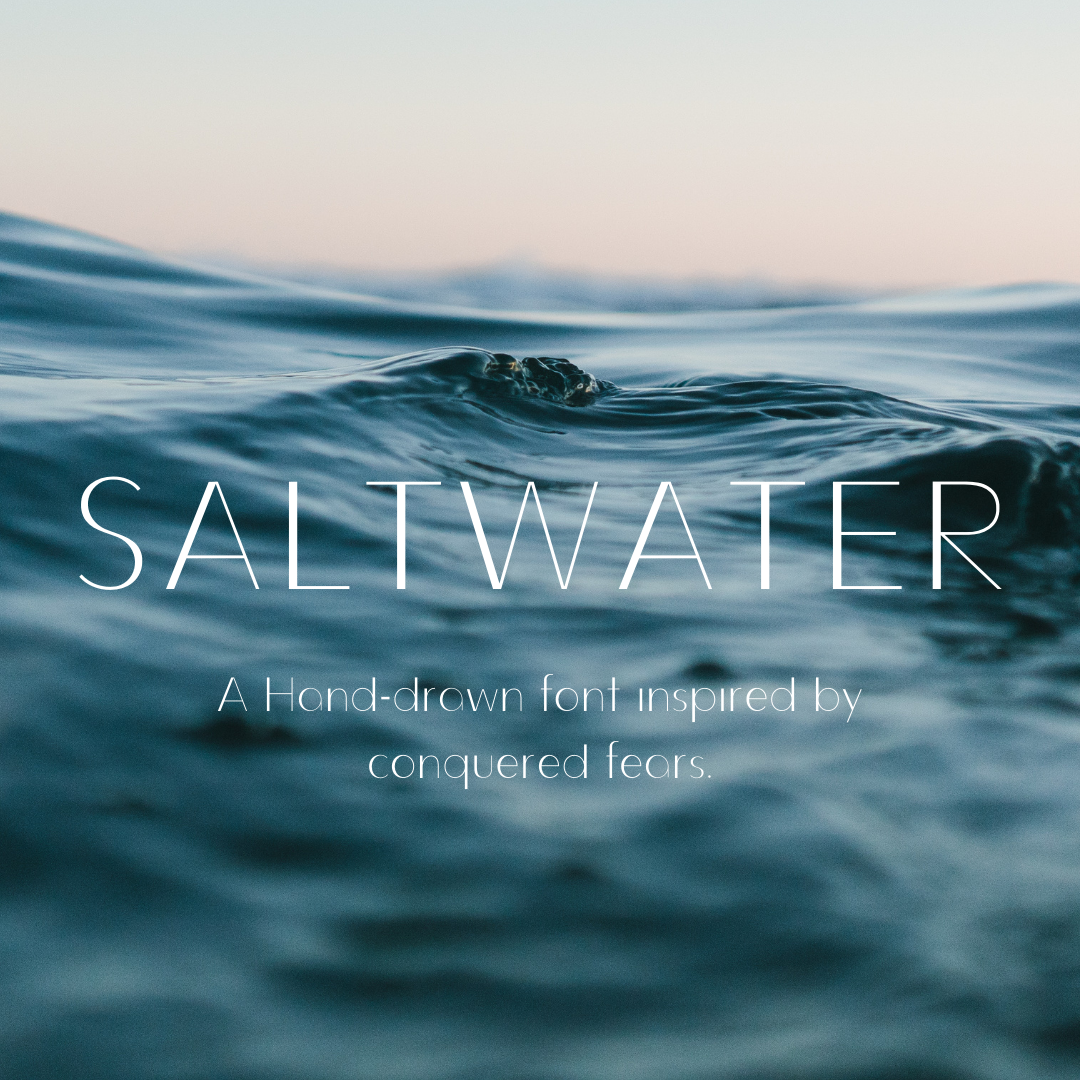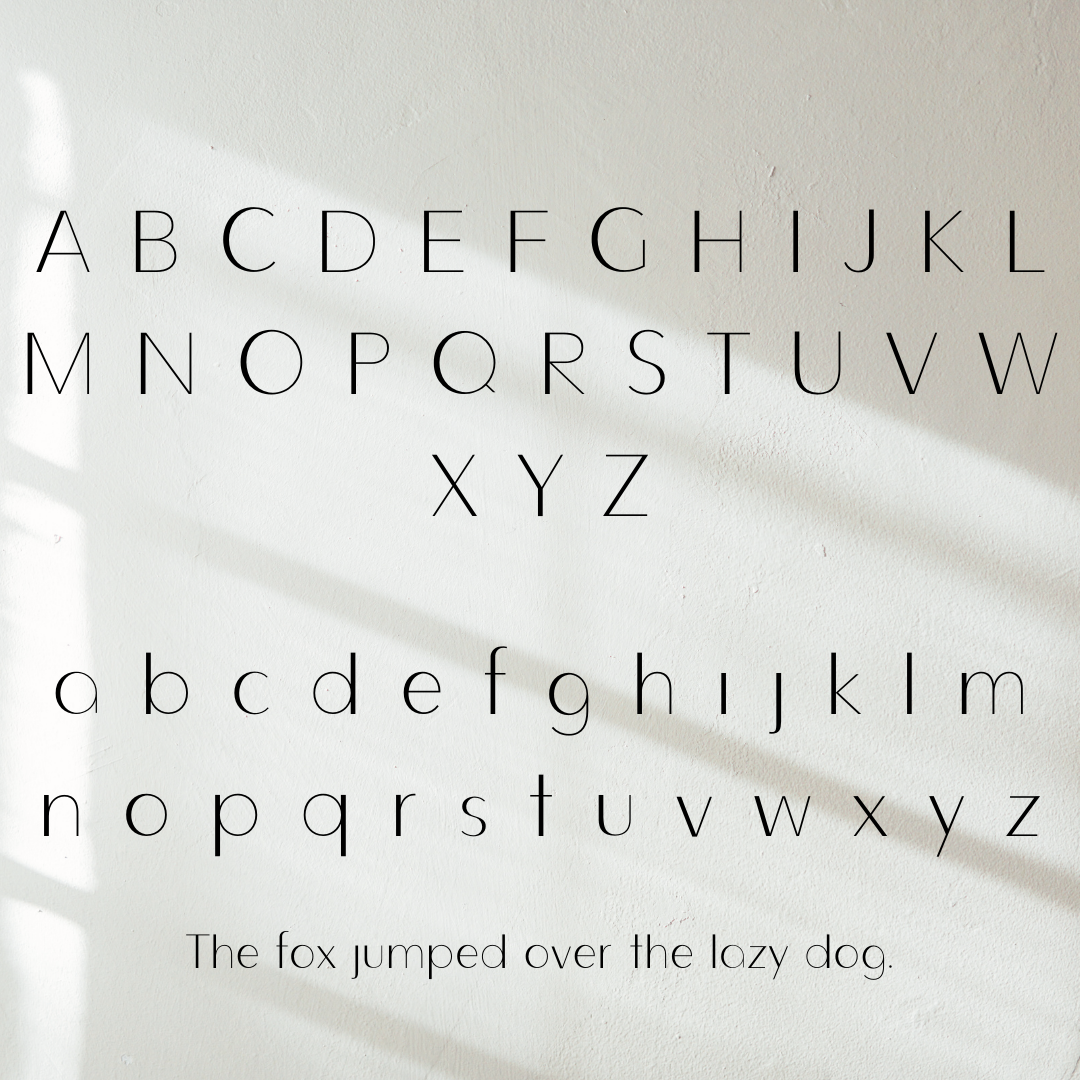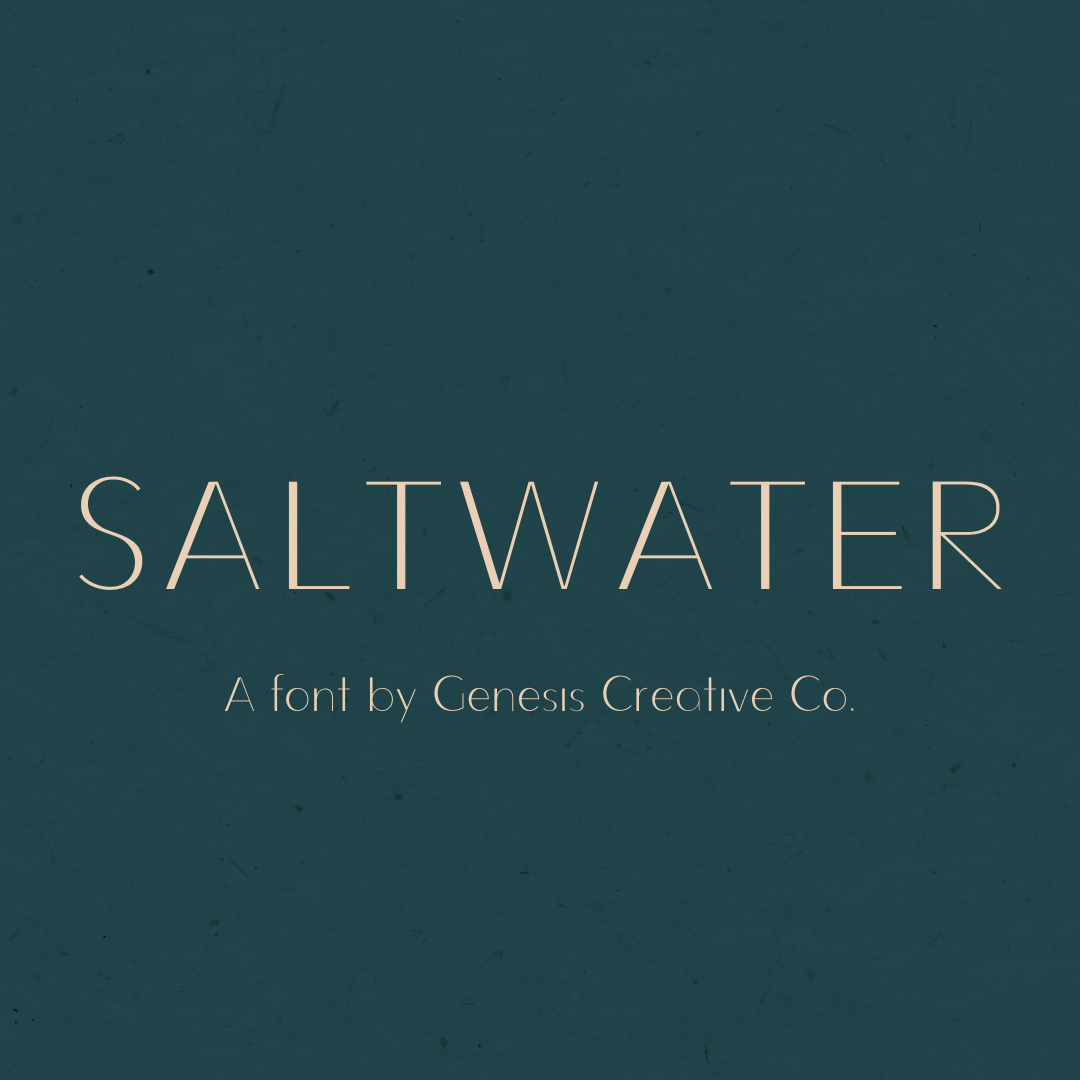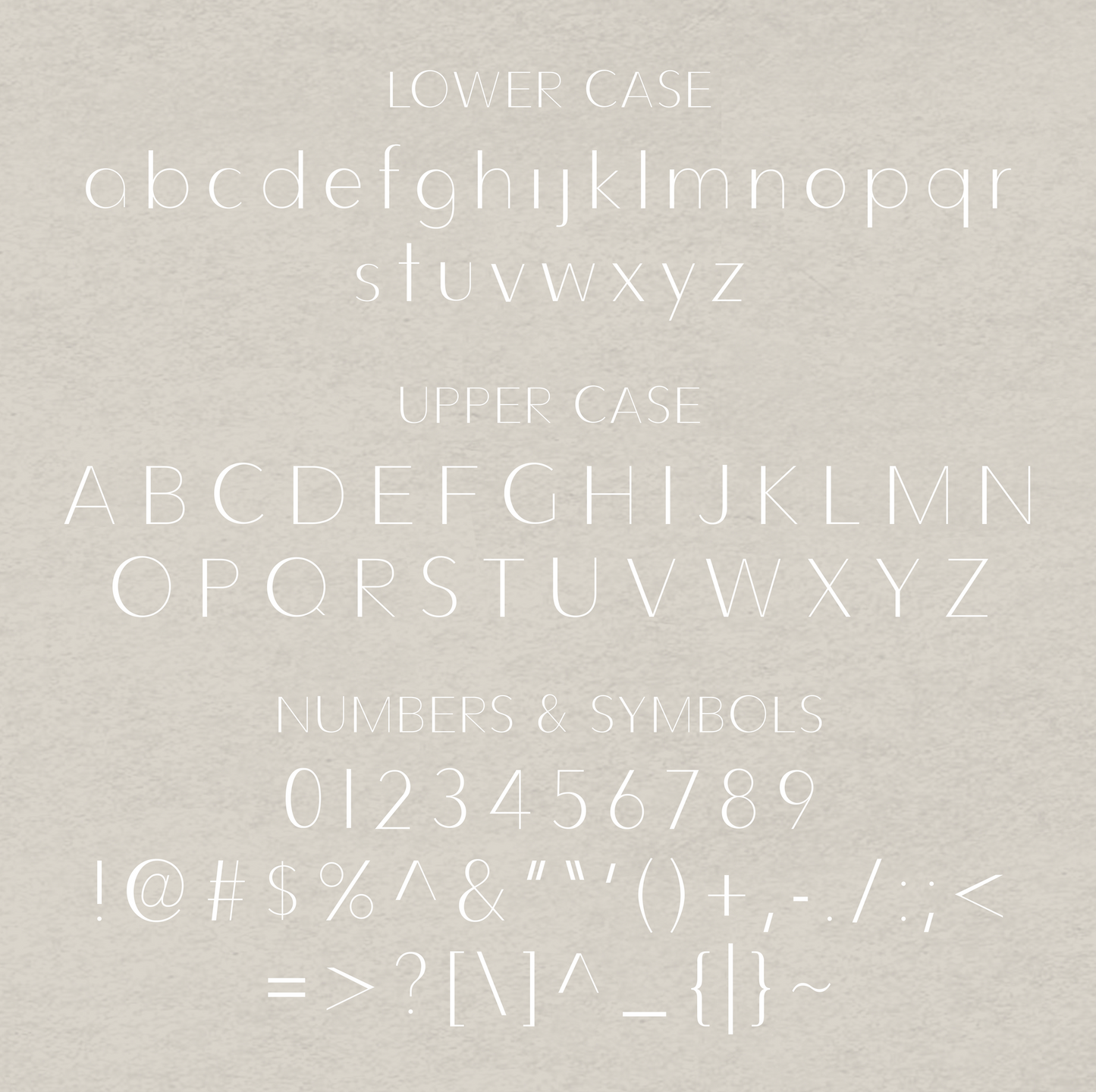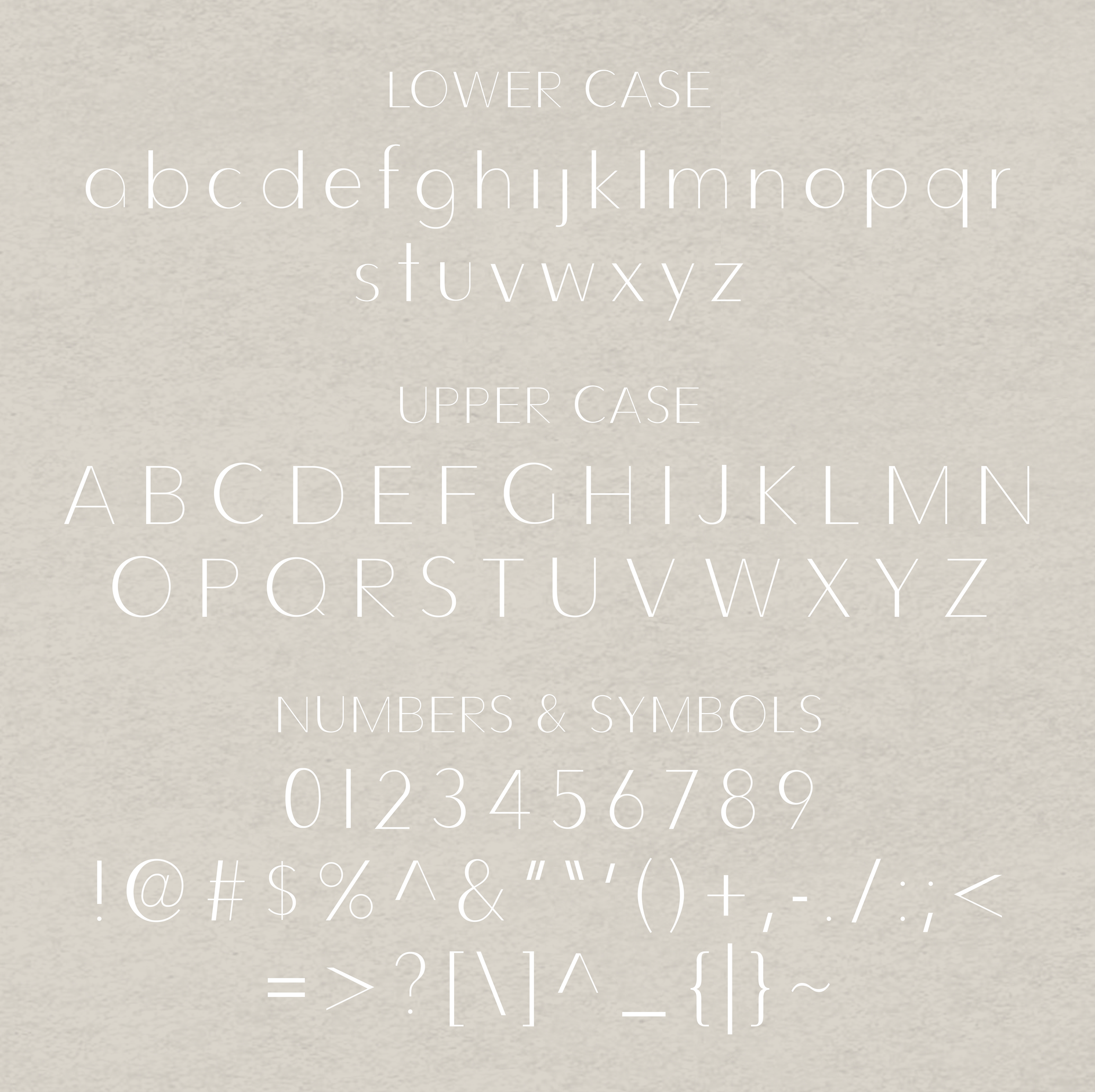
Saltwater Font
Saltwater is a bespoke, hand-drawn font. It is a sans-serif style with rounded curves and a playful (yet chic) off-balanced weight. Incredibly versatile, Saltwater can be used for headings as well as body copy.